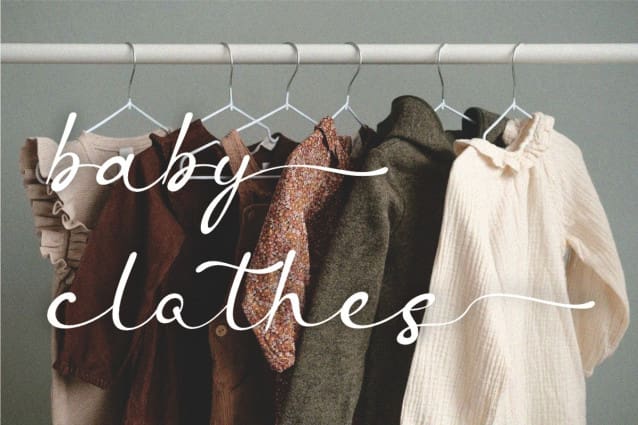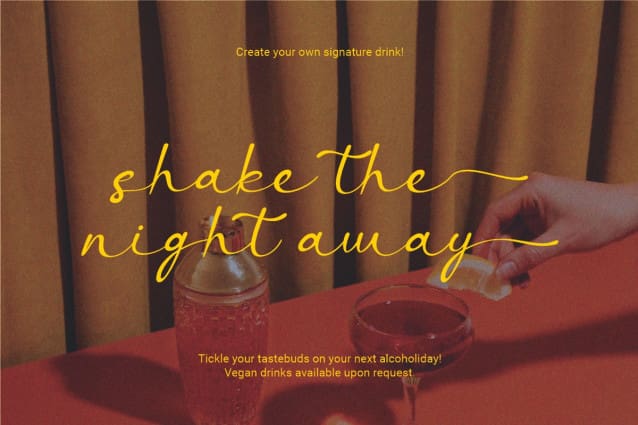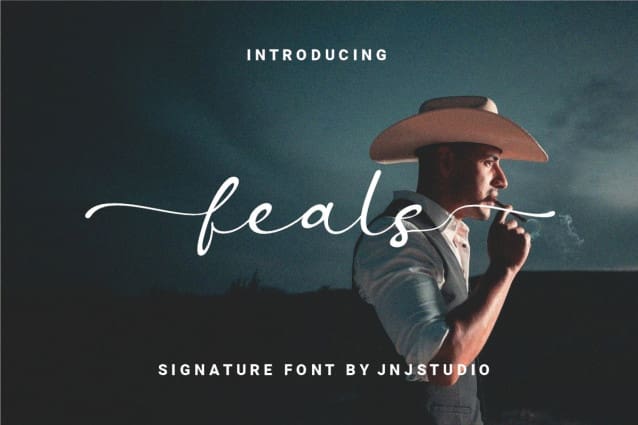
Feals Script Font
Feals Script Font is a sophisticated signature-style font that embodies elegance and authenticity. Designed to mimic natural handwriting, this script features smooth, flowing strokes with a refined touch. The delicate yet expressive curves make it perfect for branding, logos, invitations, and personal signatures.
With its modern and stylish appeal, Feals exudes a sense of warmth and personality, making every word feel personal and exclusive. Whether used for luxury branding or heartfelt messages, this font enhances any design with its graceful and effortless charm.